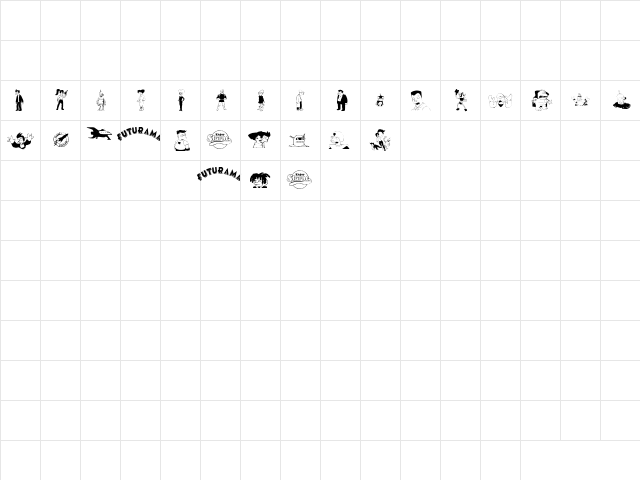
www.24hourbauer.tk Regular
Design Context for www.24hourbauer.tk Typeface
www.24hourbauer.tk is a composed and adaptable typeface that performs quietly and consistently across a wide range of design contexts.